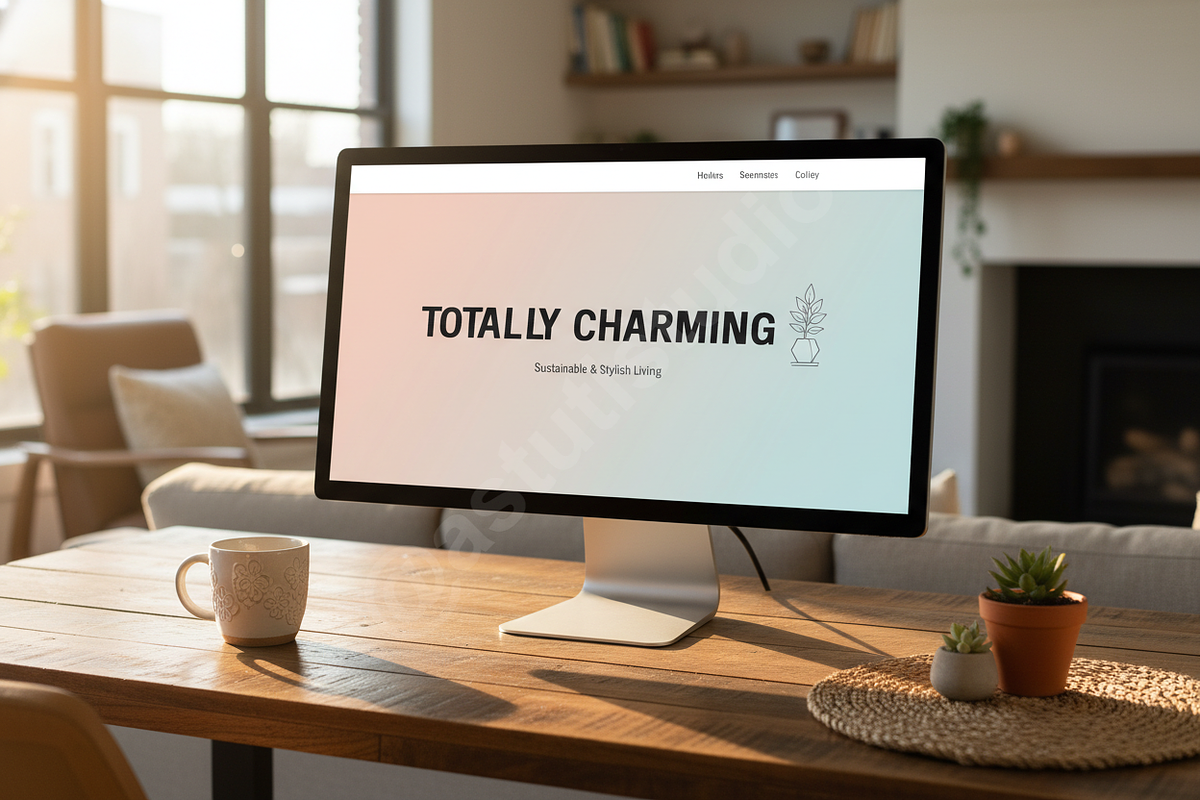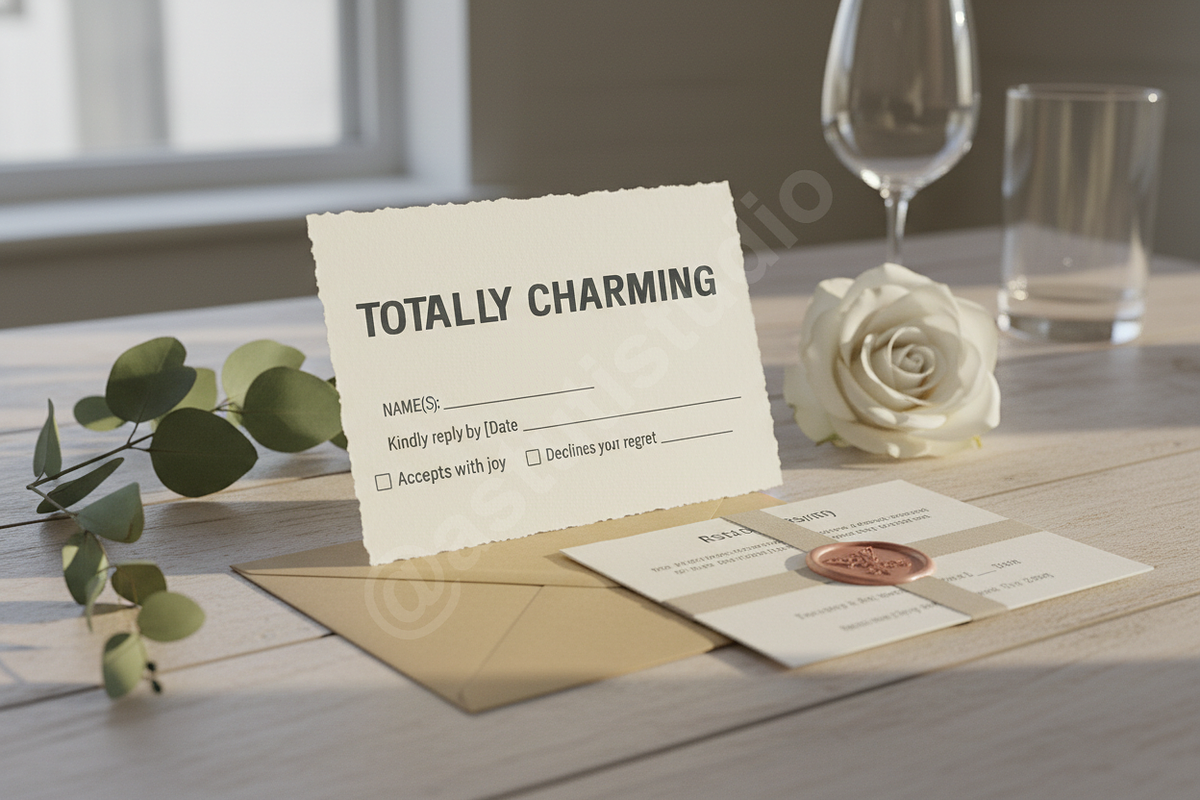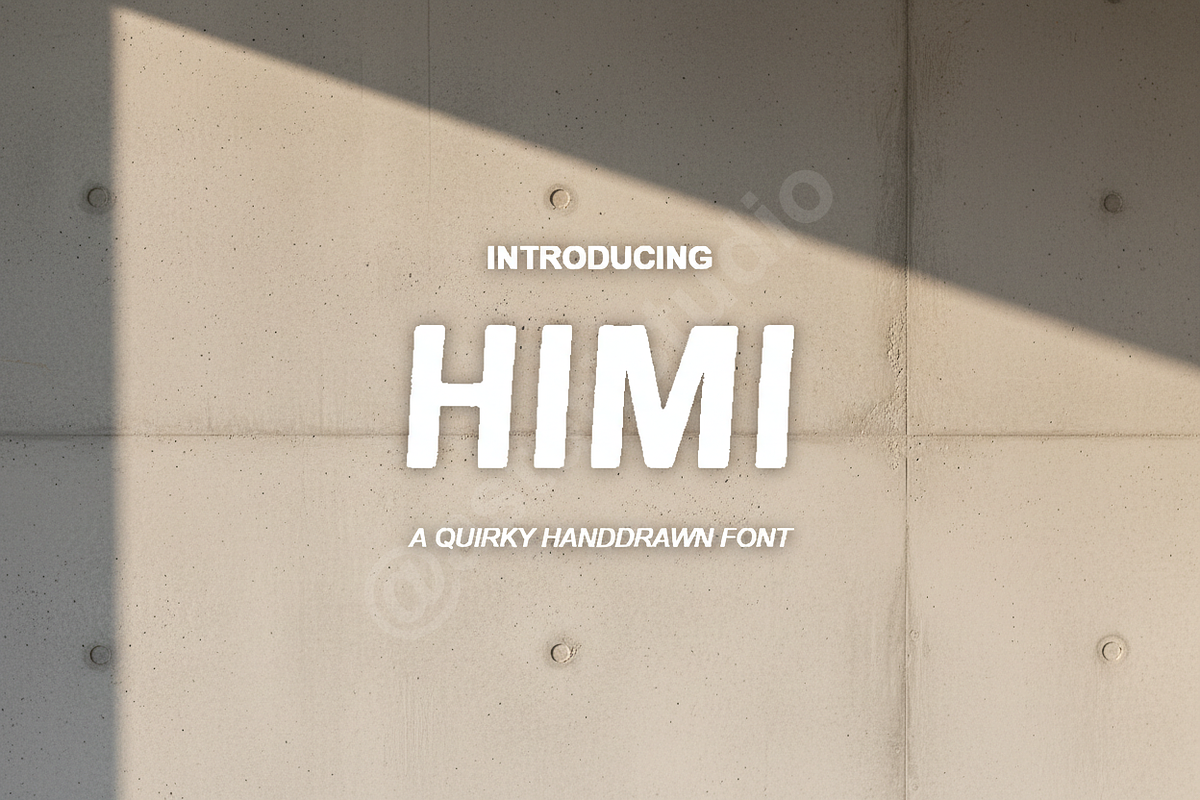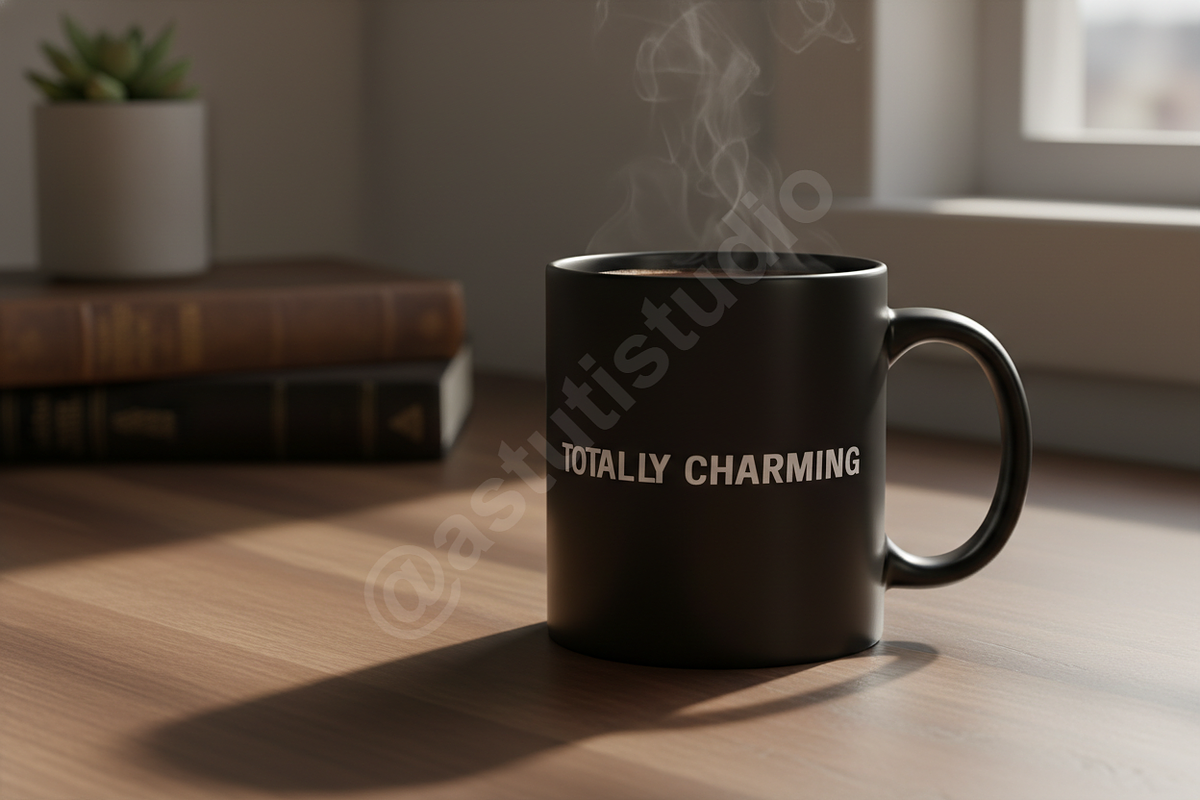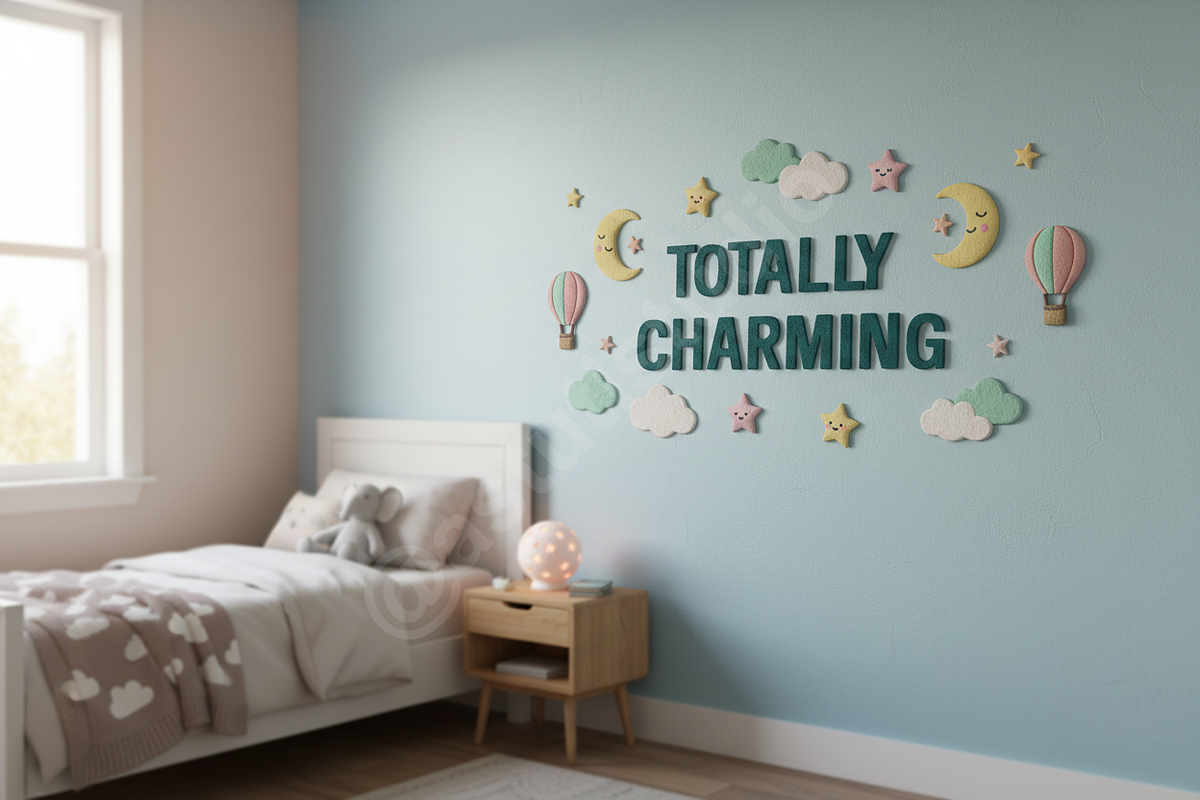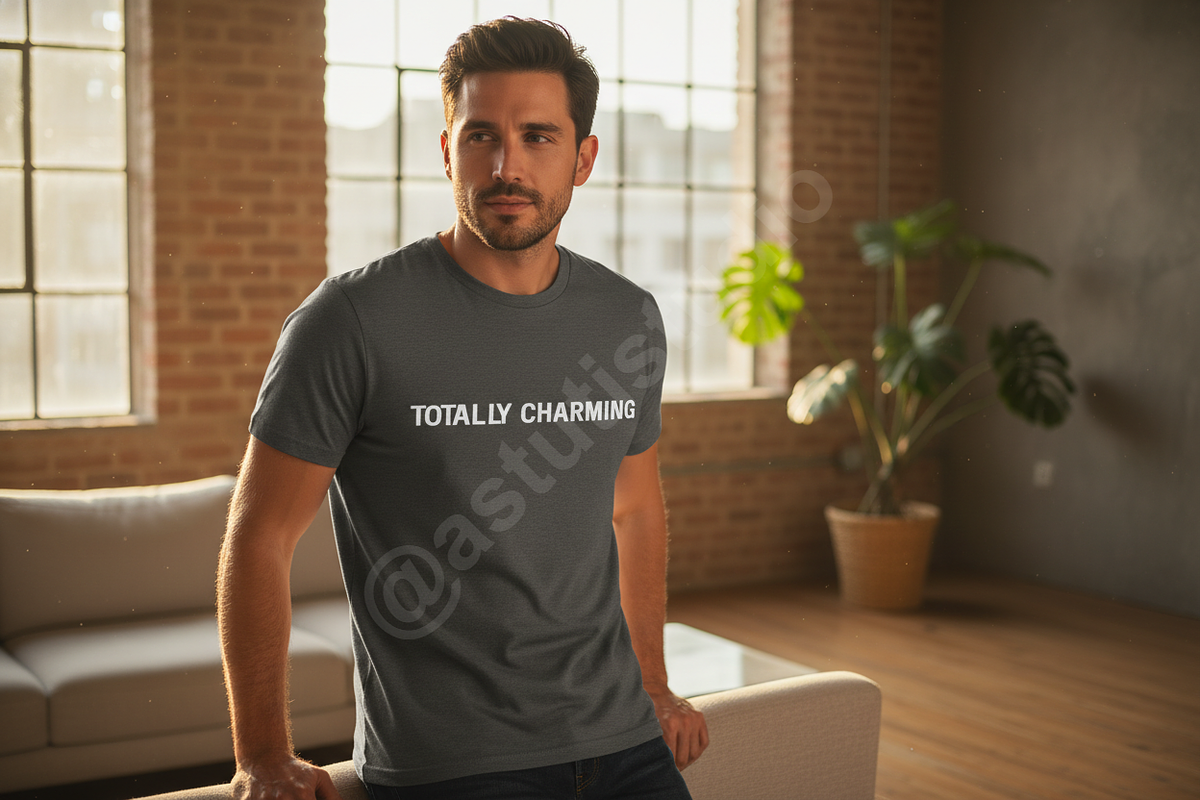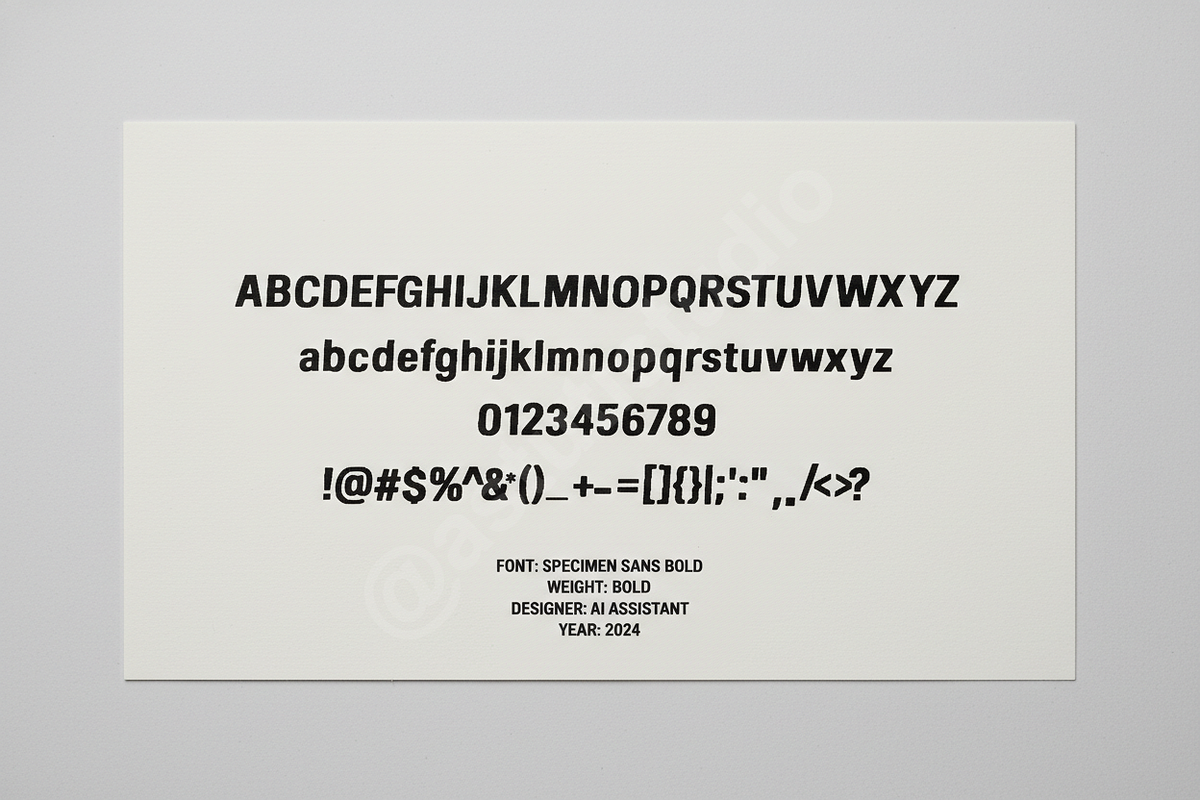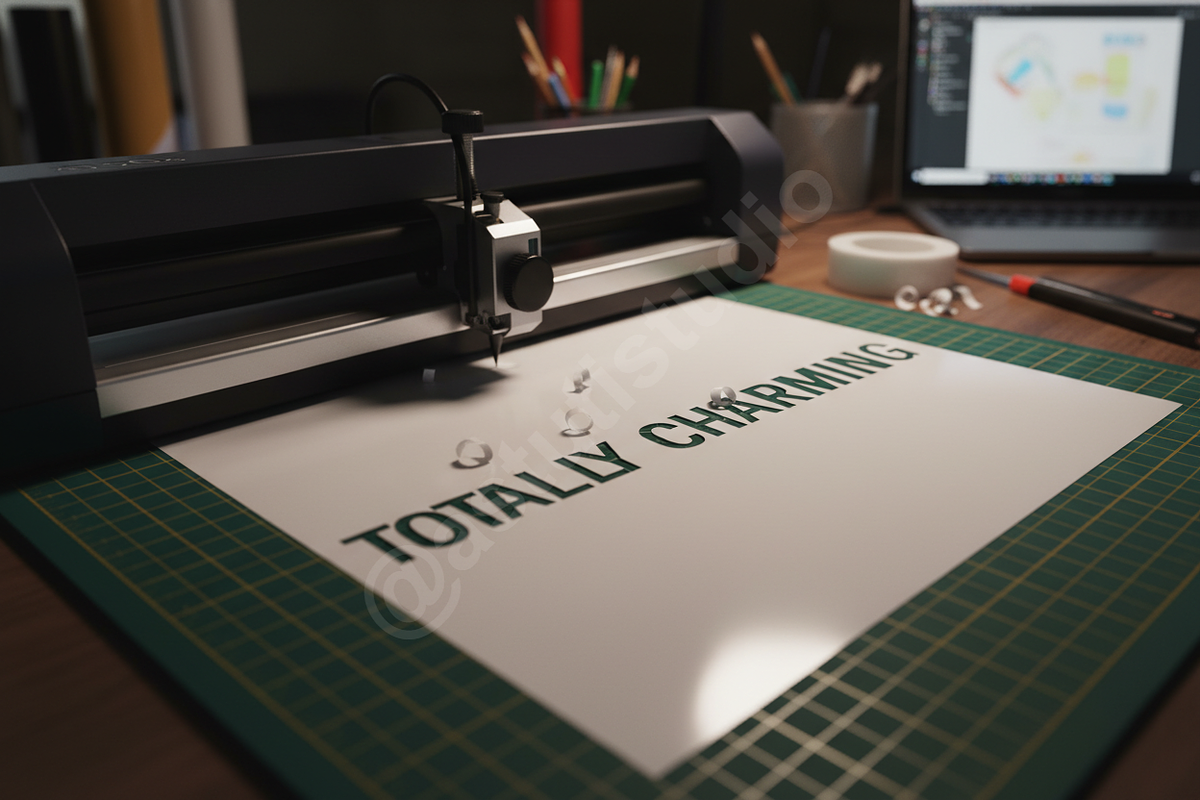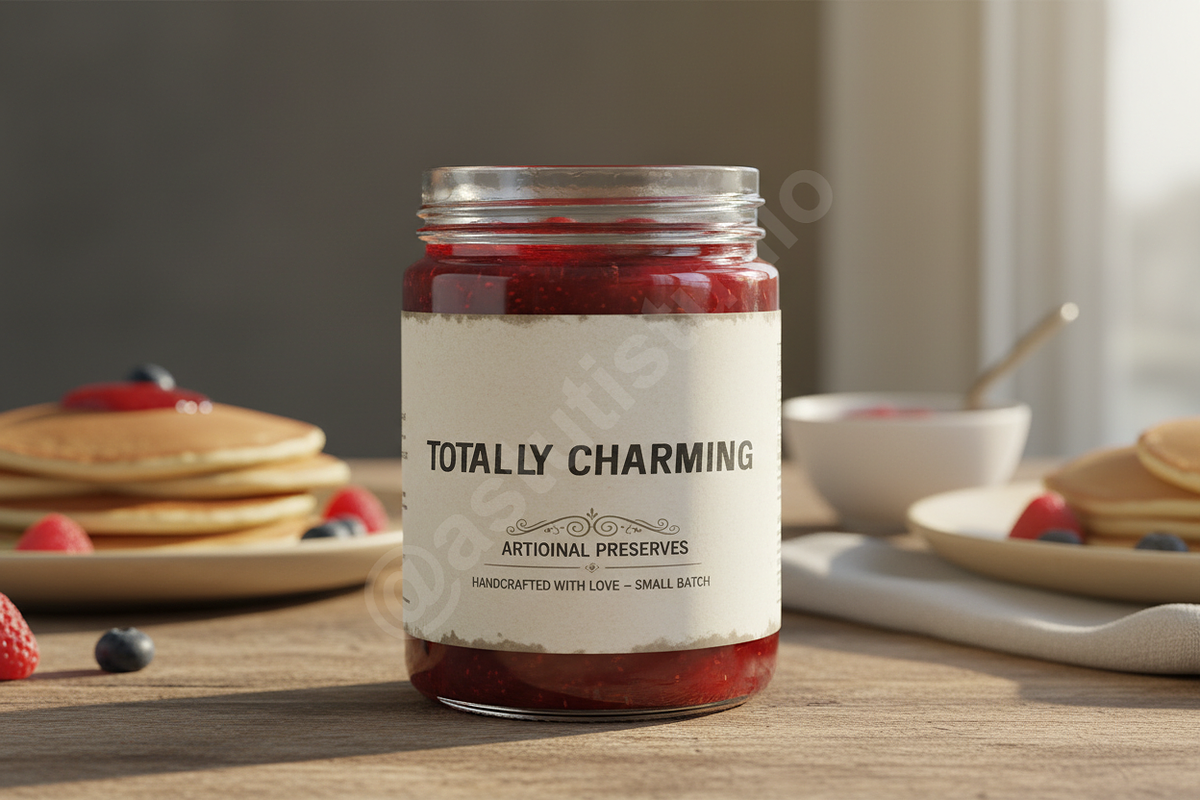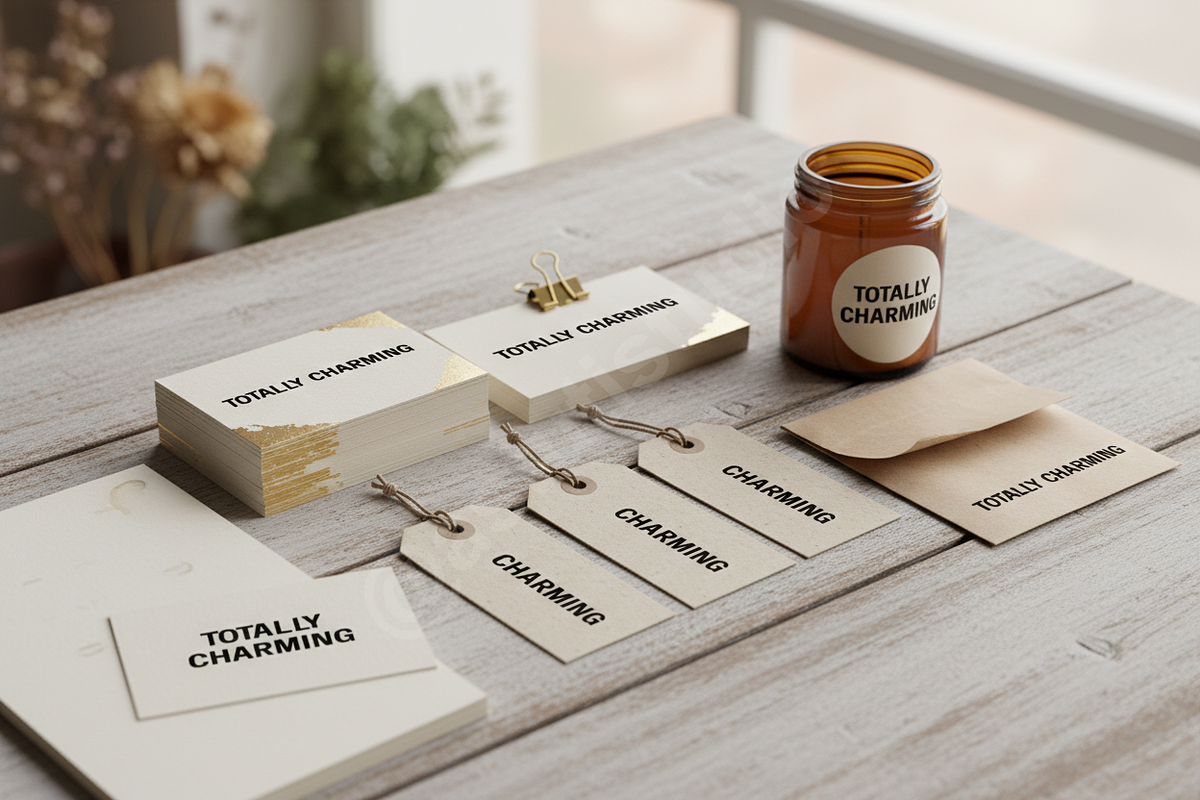
Himi - A Sophisticated Modern Serif
Introduction: Elevate your visual identity with Himi, a premium serif typeface meticulously crafted for high-end aesthetics. Merging timeless elegance with modern geometric precision, Himi is the definitive choice for designers seeking a delicate balance of sophistication and contemporary flair. It is perfectly suited for luxury branding, editorial layouts, and high-impact social media content.
- Distinctive high-contrast strokes and refined terminals.
- Perfectly balanced kerning for optimal readability across print and digital.
- Versatile performance for both bold headlines and elegant body text.
- Fluid, contemporary silhouettes designed for minimalist and high-fashion aesthetics.
- Comprehensive multilingual character support.
- Standard ligatures and discretionary alternates for custom flourishes.